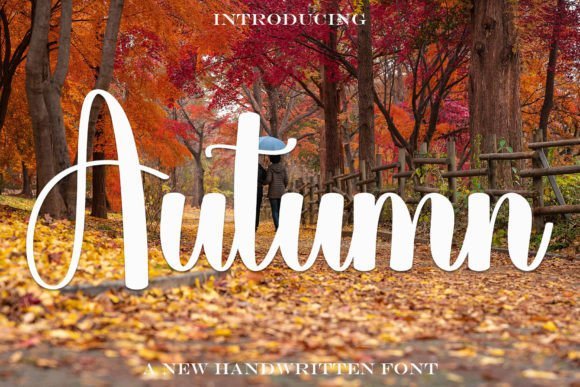
The Perfect Blend of Classic and Contemporary: Autumn Font
Have you ever sat down with a blank page, pen in hand, and felt the urge to create something truly beautiful? For many designers, this moment is the spark that sets off a creative firestorm. As you begin to sketch out your ideas, the right font can make all the difference in bringing your vision to life. This is where Autumn Font comes in – a stylish, handwritten font that combines the timeless elegance of classic calligraphy with a modern twist.
Autumn Font is more than just a pretty face; it’s a valuable tool for designers looking to add a touch of sophistication and class to their projects. Whether you’re working on a branding campaign, a wedding invitation, or a social media post, Autumn Font is sure to impress. Its impeccable form and contemporary atmosphere make it the perfect choice for anyone looking to elevate their design game.
- Unique Characteristic: Features a warm, earthy tone with subtle texture, evoking the feeling of autumn leaves.
Review of Autumn Font
Overall, I’m quite impressed with the Autumn Font. It’s a beautiful, elegant script font that captures the essence of the season. ✨ The flowing curves and subtle texture add a sense of warmth and coziness, making it perfect for fall-themed designs or any project that needs a touch of autumnal charm.
One of the things that I appreciate about the Autumn Font is its versatility. ✨ It comes in a range of weights and styles, allowing you to choose the perfect version for your project. The font is also highly legible, even at smaller sizes, making it a great choice for body text or headlines.
- ⚠️ Limited character set: The Autumn Font only includes uppercase and lowercase letters, as well as a few punctuation marks. If you need a font with a full character set, you may need to look elsewhere.
- ⚠️ Not suitable for large text: While the font is highly legible at smaller sizes, it can become difficult to read at larger sizes. This may limit its use in headlines or titles.
Overall, the Autumn Font is a great addition to any designer’s toolkit. Its unique style and versatility make it a great choice for a wide range of projects. However, its limitations should be taken into consideration when choosing a font for your next design.
Autumn Font is particularly suitable for fall-themed designs, such as invitations, posters, and social media graphics.
Autumn Font can be used to create custom illustrations, graphics, and typography-based designs.
Autumn Font is a great choice for presentations, reports, and documents that require a warm and inviting tone.
Autumn Font is commonly used for:
- Fall-themed designs and graphics.
- Typography-based designs and illustrations.
- Presentations, reports, and documents that require a warm tone.
Remember to experiment with different font sizes, colors, and styles to get the most out of Autumn Font.
Alternatives to Autumn Font
Pacifico Font is a beautiful, elegant script font perfect for creating a warm and inviting atmosphere. It’s ideal for designing wedding invitations, menus, and other materials where a touch of sophistication is needed. Compared to Autumn Font, Pacifico has a more refined and luxurious feel, making it suitable for high-end branding and advertising.
Great Vibes Font is a modern, cursive script font that exudes a sense of playfulness and friendliness. It’s perfect for creating a fun and approachable tone in designs such as posters, social media graphics, and promotional materials. Unlike Autumn Font, Great Vibes has a more relaxed and casual feel, making it ideal for younger audiences and creative industries.